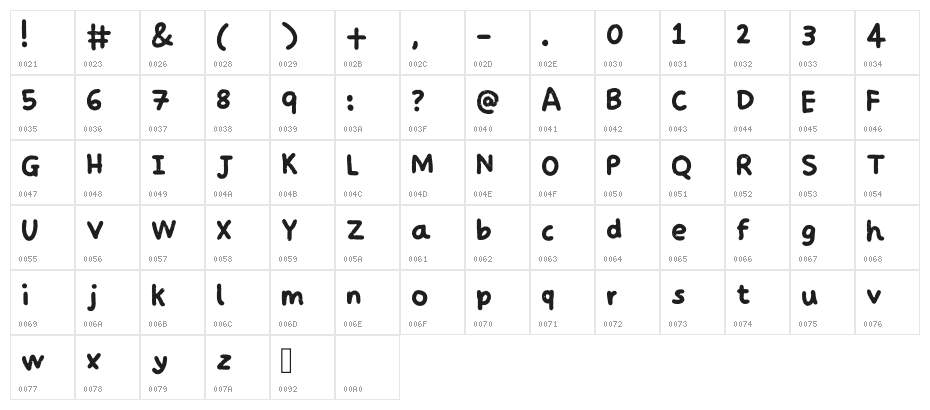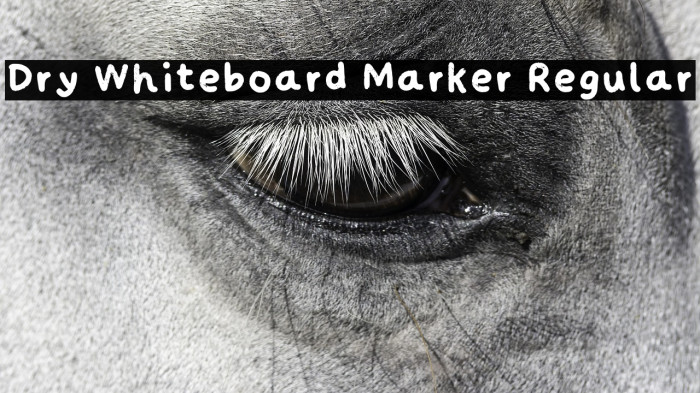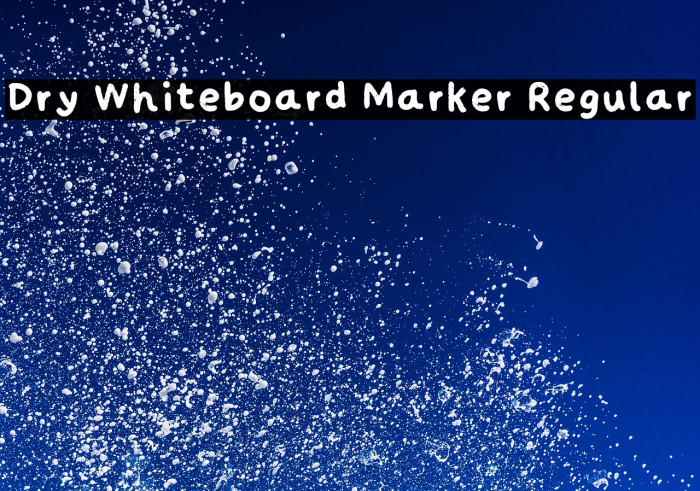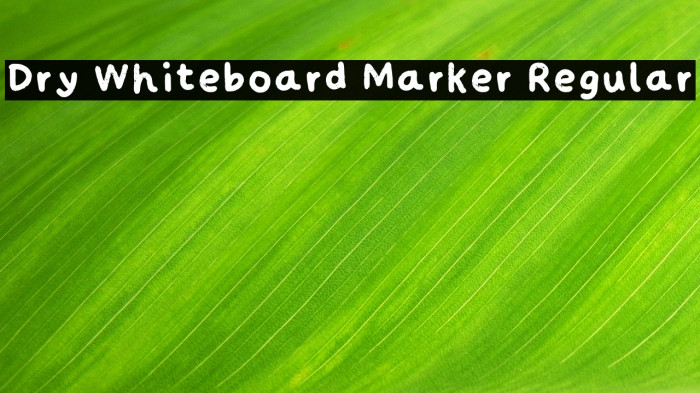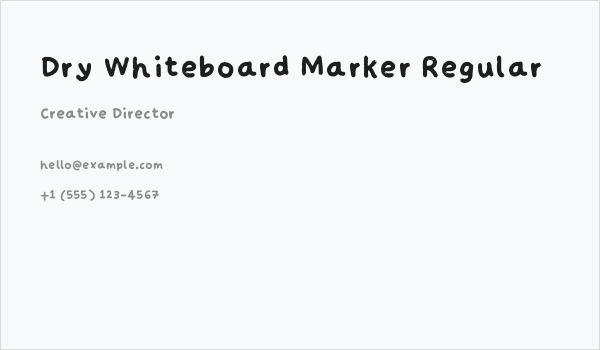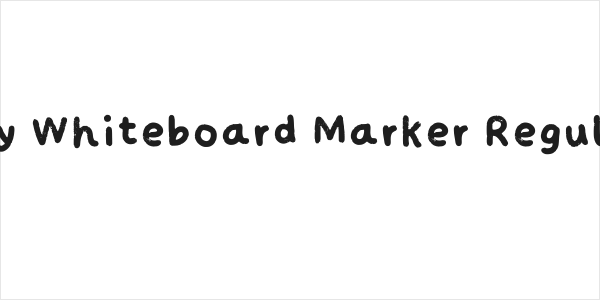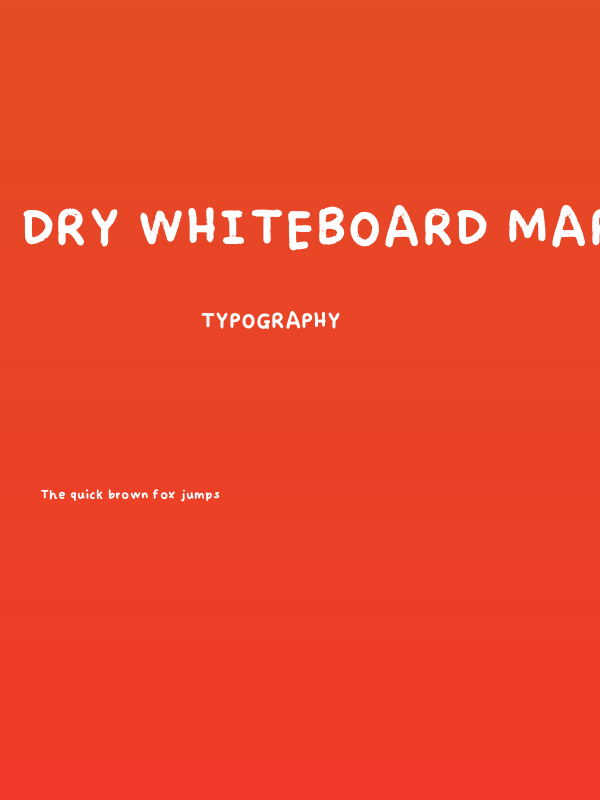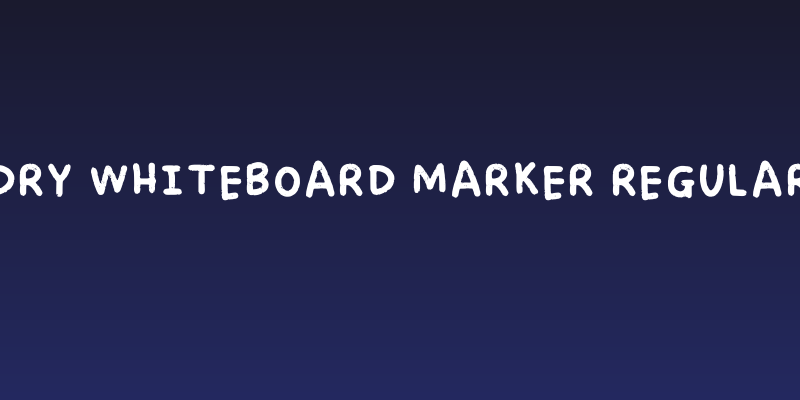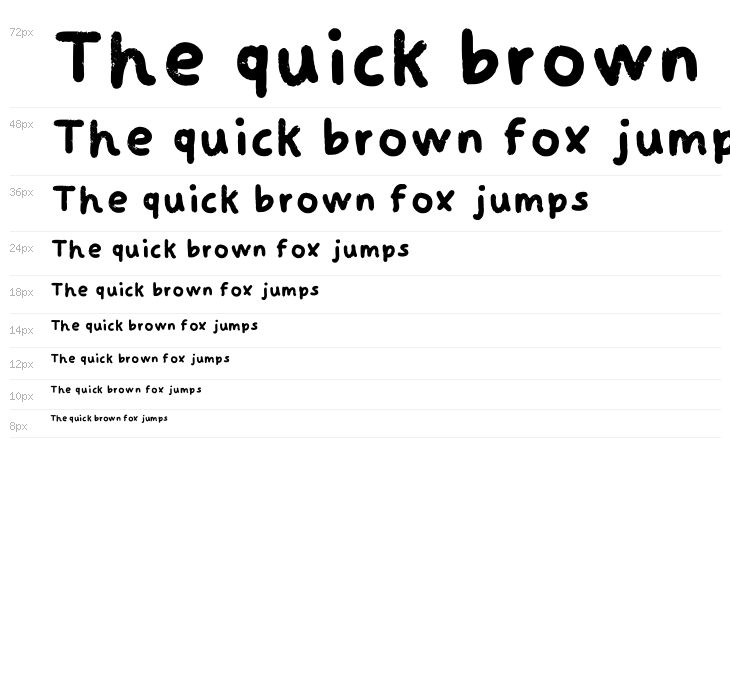
Dry Whiteboard Marker Regular Font
Dry Whiteboard Marker Regular Description
This font exudes a casual, handwritten style reminiscent of writing with a dry whiteboard marker. The characters are bold and slightly irregular, giving them a playful and informal appearance. The strokes are thick and consistent, with rounded edges that soften the overall look. The uppercase and lowercase letters maintain a uniform height, contributing to a cohesive and balanced design. The numbers and special characters follow the same style, ensuring versatility across different uses. This font is ideal for projects that require a friendly and approachable aesthetic.
| Use Case | Headlines, Informal text, Posters |
| Proposed Projects | Perfect for educational materials, children's books, casual posters, and informal branding. |